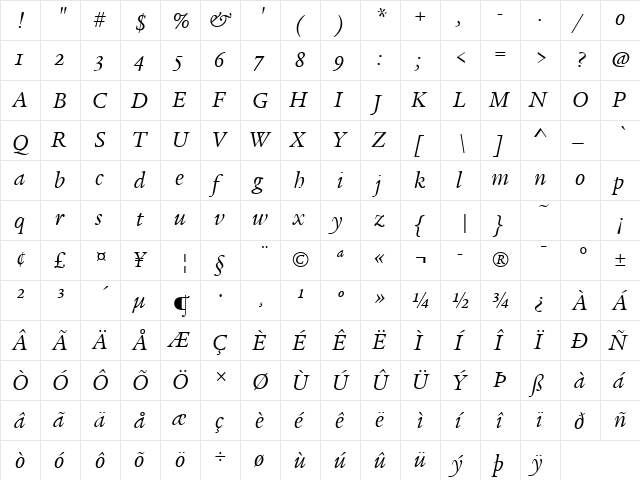
Legacy Serif OS ITC TT BookIta
Design Context for Legacy Serif OS ITC TT Typeface
Legacy Serif OS ITC TT carries the refined structure of traditional serif typography, with bracketed terminals and considered proportions that communicate credibility and craft.